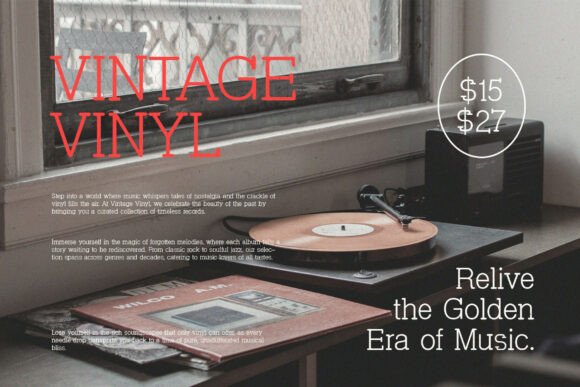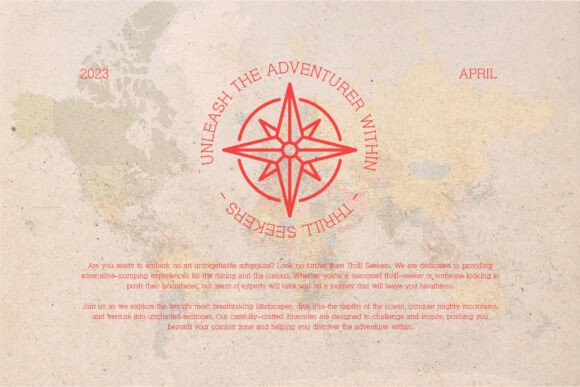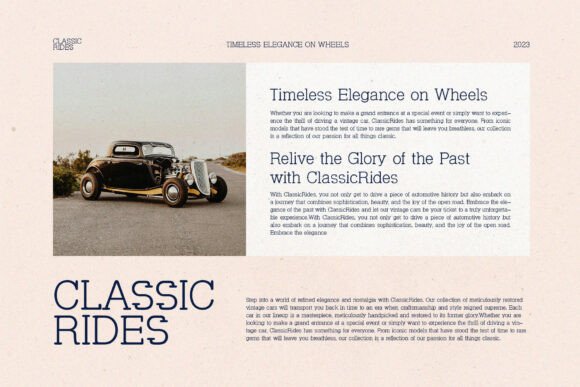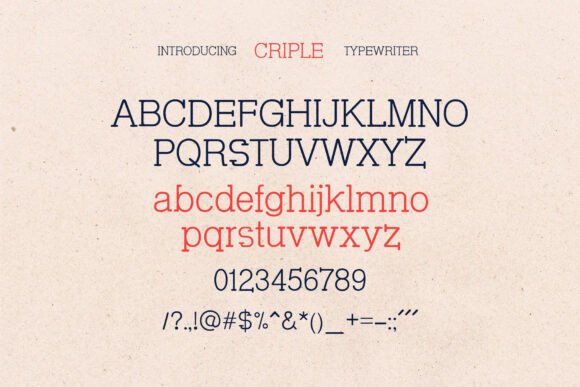
Criple Font: Elevate Your Designs with Elegance and Boldness
Are you on the hunt for a font that exudes elegance, sophistication, and boldness? Look no further than Criple Font! This stunning serif font is making waves in the design community, and for good reason. With its incredibly versatile style, Criple Font is perfect for creating a wide range of designs, from gorgeous wedding invitations to beautiful stationary art, eye-catching social media posts, and much more.
The Perfect Blend of Elegance and Boldness
Criple Font is a masterclass in balance and harmony. Its elegant and refined lines are perfectly offset by its bold and confident presence, making it a font that demands attention. Whether you’re looking to create a sophisticated wedding invitation or a bold social media post, Criple Font has the perfect balance of style and substance to help you achieve your design goals.
What Makes Criple Font So Versatile?
So, what makes Criple Font so versatile? For starters, its classic serif design makes it perfect for creating traditional and timeless designs, such as wedding invitations, certificates, and formal event materials. But, its bold and modern twist also makes it ideal for more contemporary designs, such as social media posts, flyers, and brochures.
Additionally, Criple Font comes with a range of features that make it easy to use and customize, including:
- Multiple font weights and styles, allowing you to create a range of different looks and effects
- Support for multiple languages, making it perfect for international designs
- Beautifully crafted glyphs and ligatures, adding an extra layer of elegance and sophistication to your designs
Endless Design Possibilities with Criple Font
With Criple Font, the design possibilities are endless! Here are just a few ideas to get you started:
- Create stunning wedding invitations, save-the-dates, and thank-you cards that will leave a lasting impression on your guests
- Design beautiful stationary art, such as letterheads, business cards, and journals, that showcase your brand’s personality and style
- Make a statement on social media with eye-catching posts, graphics, and stories that showcase your creativity and flair
- Develop professional-looking certificates, diplomas, and awards that exude elegance and sophistication
Why Designers and Crafters Love Criple Font
So, why are designers and crafters falling in love with Criple Font? Here are just a few reasons:
- Its unique blend of elegance and boldness makes it perfect for a wide range of designs
- Its versatility and flexibility make it easy to use and customize
- Its high-quality craftsmanship and attention to detail make it a joy to work with
Get Ready to Elevate Your Designs with Criple Font
If you’re looking for a font that will elevate your designs and take them to the next level, look no further than Criple Font. With its elegant and bold style, versatile features, and endless design possibilities, Criple Font is the perfect choice for designers and crafters who want to create stunning and effective designs.